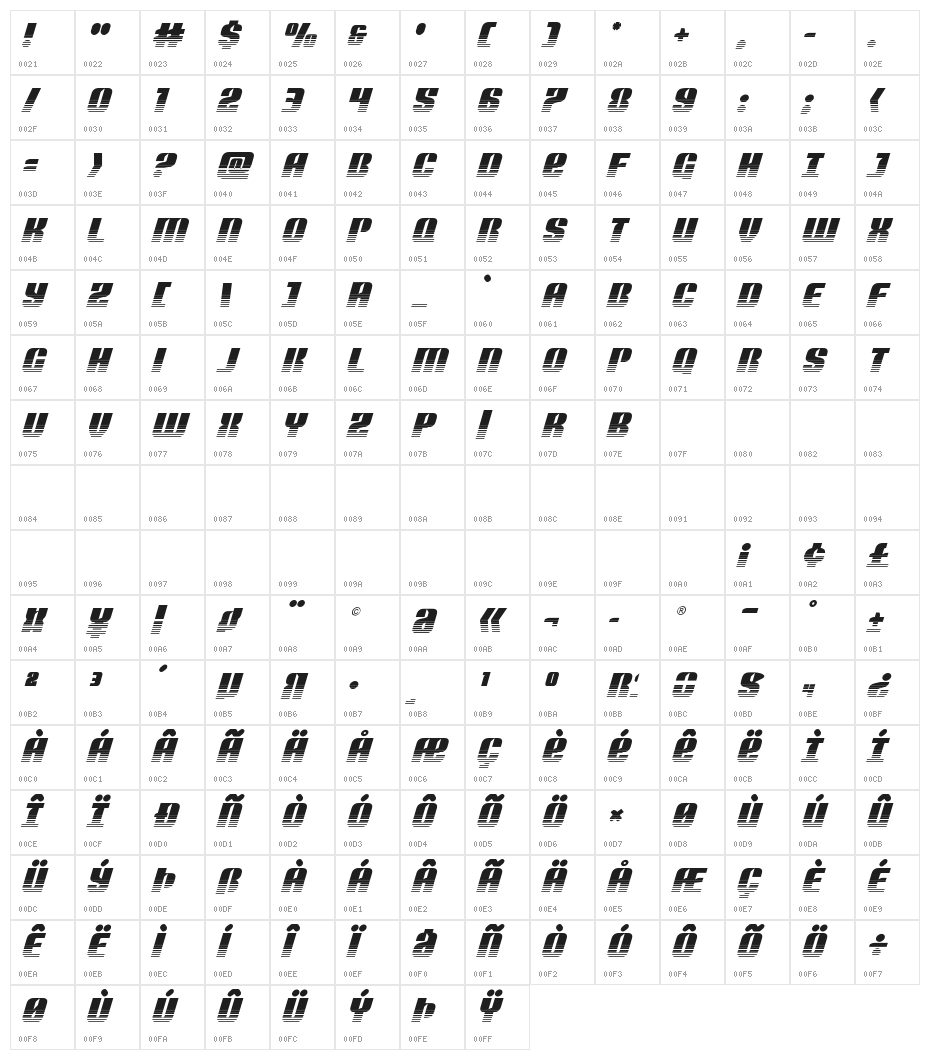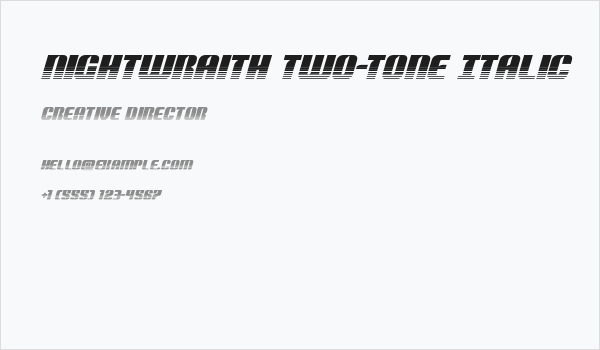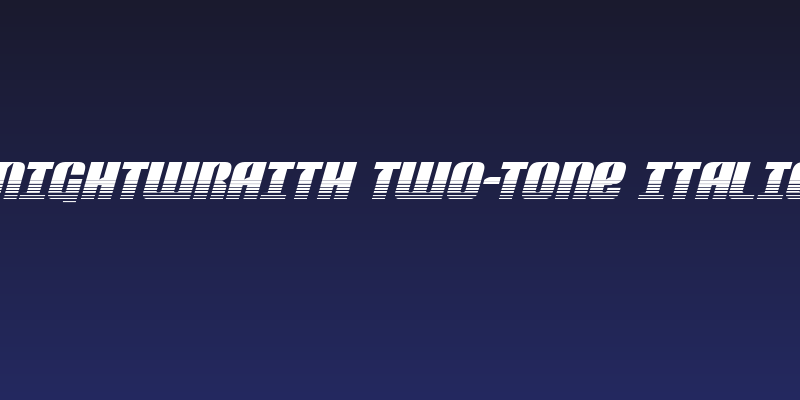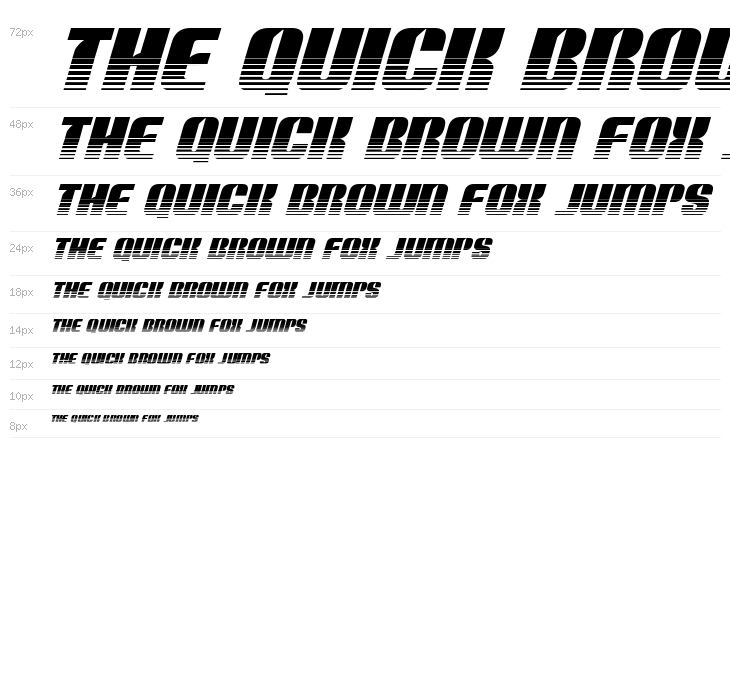
Nightwraith Two-Tone Italic Font
Nightwraith Two-Tone Italic Description
This font features a bold and dynamic design with a two-tone effect that gives it a sense of movement and energy. The italicized style adds a forward-leaning, futuristic feel, making it ideal for projects that require a modern and edgy look. The characters are wide and have a striped pattern that enhances the visual impact, making them stand out in any design. The font is particularly suitable for headlines, posters, and branding materials where a strong visual statement is needed. Its unique style is both eye-catching and memorable, ensuring that any text set in this font will capture attention.
| Proposed Projects | Ideal for use in headlines, posters, branding, and any design needing a modern, energetic look. |